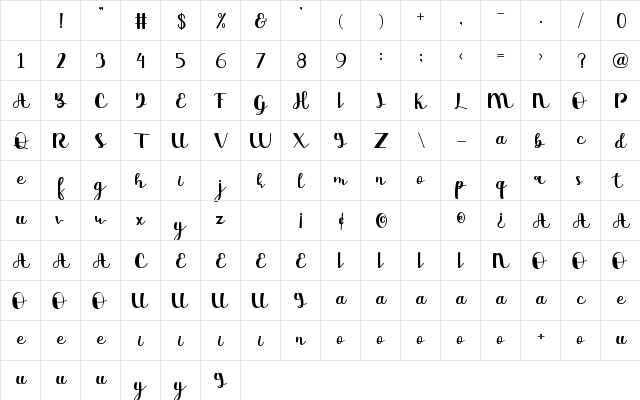
Complete Beauty Day Regular glyph index. Displaying only characters natively supported by Beauty Day Regular font.
Beauty Day is a composed and adaptable typeface that performs quietly and consistently across a wide range of design contexts.